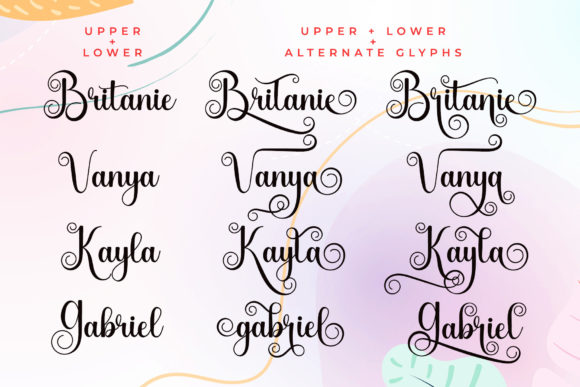
Aliyah Script Font
db-ku.com - Script & Handwritten -- Aliyah Script is a thin lettered and graceful script font. Fall for its ravishing style and use it to create gorgeous wedding invitations, beautiful stationary art, eye-catching social media posts, and much more! This font is PUA encoded which means you can access all glyphs and swashes with ease!